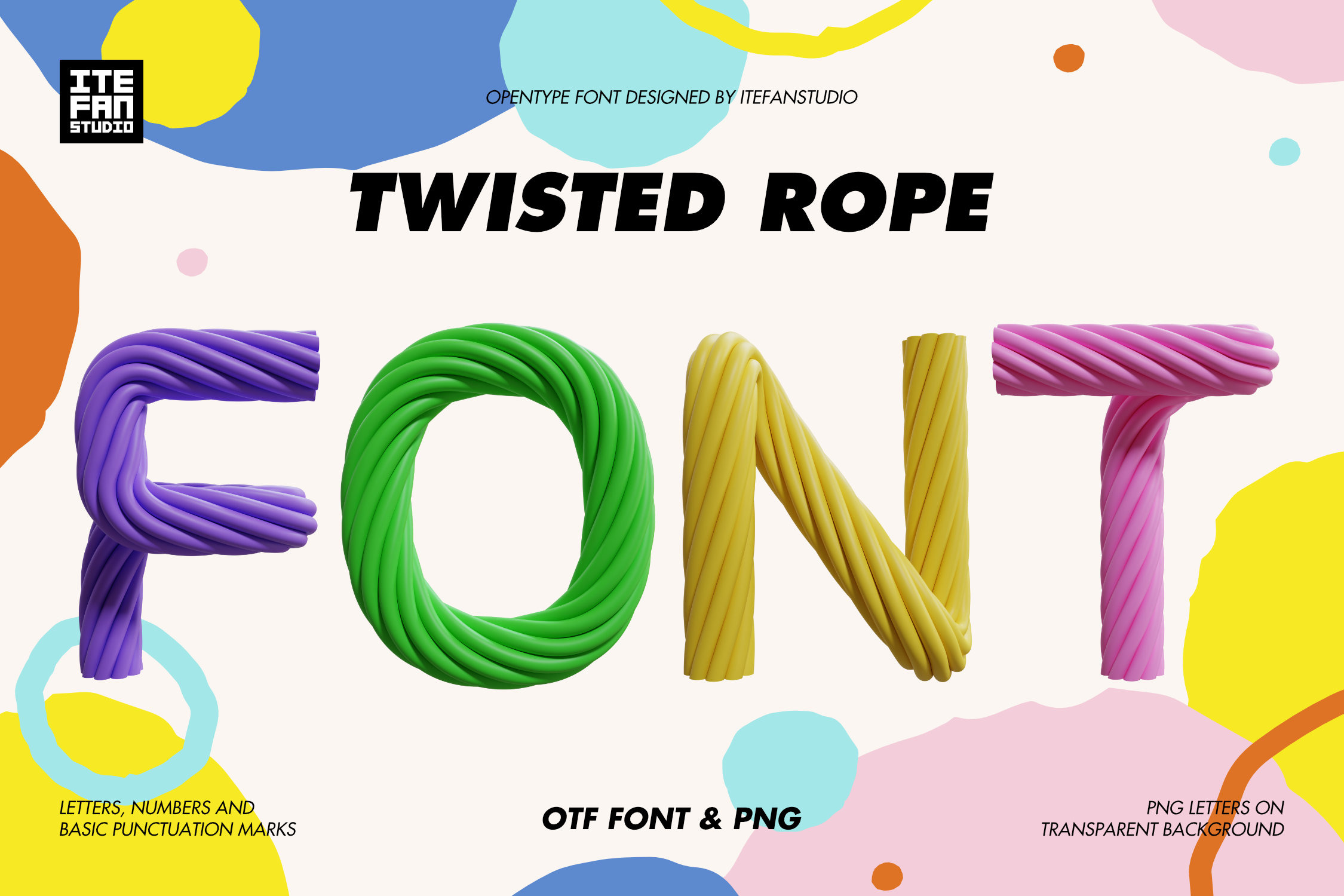
Twisted Rope Font
The style features a sleek, contemporary 3D twisted-rope typeface with a clean, minimal aesthetic. Its smooth, glossy finish and bold, saturated tones create a fun, candy-like character that fits perfectly in modern digital design. Available in both OTF and PNG formats with transparent backgrounds.
- Letters : A to Z
- Numbers : 0 to 9
- Others : $ € £ ¥ + - = ' , * @ & ( ) . : ? ! / % # ^ < > [ ] ; " ~ ` { } _ | \
This font is a high-resolution OpenType typeface featuring uppercase letters, numbers, and basic punctuation, with each character approximately 800 pixels tall. A complete preview of all letters and glyphs is provided for reference.